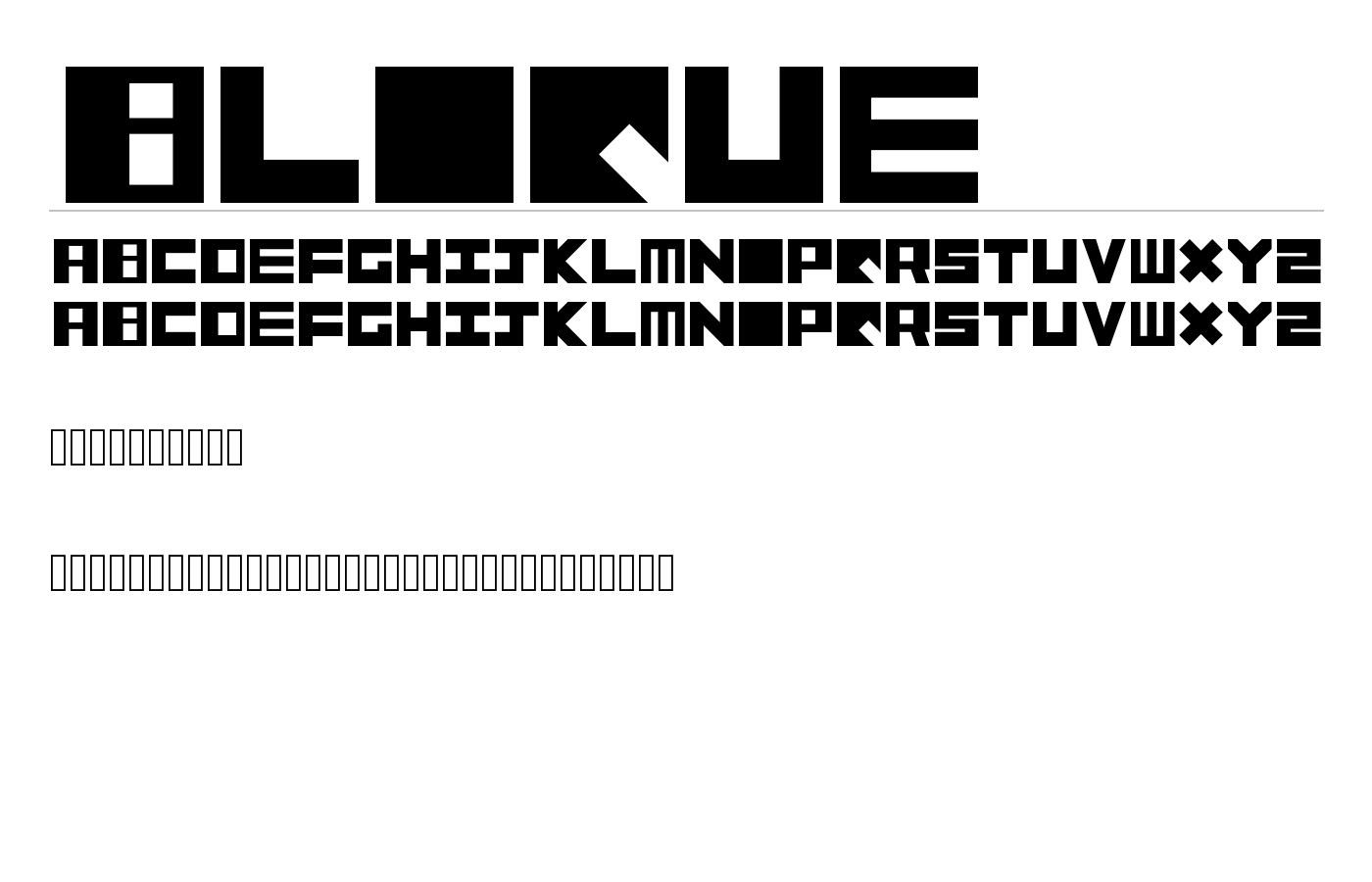
Bloque is a bold, geometric sans serif font with a strong, blocky appearance and sharp edges that create a modern, industrial vibe. Its sturdy, condensed letterforms and high contrast strokes make it ideal for impactful headlines, logos, and designs that need a futuristic or tech-inspired feel. This font works best in large sizes where its unique angular shapes and solid construction can stand out and make a statement.
Bloque Font